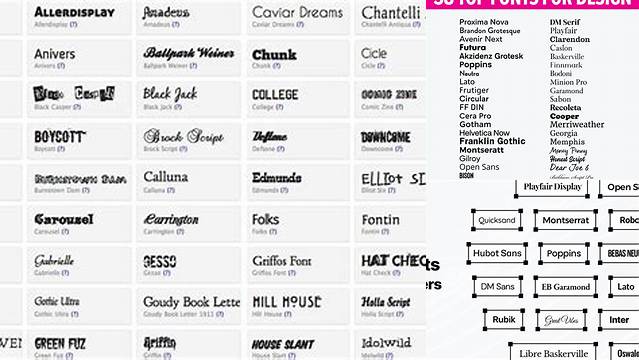
Top Website Fonts 2026: Best Typography Choices
Choosing the right fonts for your website is crucial for creating a visually appealing and user-friendly experience. Fonts play a significant role in conveying your brand's personality, improving readability, and ensuring your content resonates with your audience. As we look ahead to 2026, several font trends and classic favorites are expected to dominate web design. This article will delve into the most popular fonts you should consider for your website to stay ahead of the curve. From timeless classics to modern and innovative typefaces, we'll explore the fonts that will help you make a lasting impression online. So, letâs dive in and discover the fonts that will shape the future of web typography.
Why Font Choice Matters
Before we jump into the specific fonts that are expected to be popular in 2026, letâs discuss why font choice is so important. Fonts are more than just letters; they are visual elements that contribute significantly to your website's overall design and user experience. The right font can enhance readability, making it easier for visitors to engage with your content. A well-chosen font can also reflect your brand's identity and personality, helping you create a cohesive and memorable online presence. For example, a sleek, modern sans-serif font might be perfect for a tech company, while a classic serif font could be more appropriate for a traditional law firm.
Furthermore, font choice can significantly impact user engagement. If your website uses a font that is difficult to read or visually unappealing, visitors are likely to leave quickly. On the other hand, a clear, attractive font can encourage users to stay longer, explore more content, and ultimately convert into customers. Therefore, carefully selecting your fonts is an investment in your website's success. When choosing fonts, it's also essential to consider factors like font pairing, legibility across different devices, and the overall aesthetic you want to achieve. By paying attention to these details, you can create a website that not only looks great but also provides an optimal user experience. In the rapidly evolving landscape of web design, staying informed about font trends and best practices is crucial for maintaining a competitive edge. Letâs explore some of the top contenders for the most popular website fonts in 2026.
Expected Font Trends in 2026
As we move closer to 2026, several key font trends are emerging that are likely to shape the landscape of web design. These trends reflect a broader movement towards user-friendly, visually engaging, and brand-centric designs. Understanding these trends will help you make informed decisions about the fonts you choose for your website. One major trend is the continued popularity of sans-serif fonts. Known for their clean, modern lines, sans-serif fonts are highly legible on screens, making them an excellent choice for body text and headings alike. Fonts like Open Sans, Roboto, and Lato are expected to remain popular due to their versatility and readability. However, there's also a growing interest in more unique and stylized sans-serif options that can add personality to a website.
Another significant trend is the resurgence of serif fonts, but with a modern twist. Classic serif fonts like Times New Roman and Georgia are being reimagined with updated designs and improved legibility for digital platforms. These fonts bring a touch of elegance and sophistication to websites, making them a great choice for brands that want to convey a sense of tradition and authority. In addition to these established categories, we're also seeing the rise of variable fonts. Variable fonts offer incredible flexibility, allowing designers to adjust font weight, width, and other characteristics to create custom typography that perfectly matches their brand's identity. This trend towards personalization and customization is expected to gain even more momentum in the coming years. Moreover, the use of display fonts is becoming more prevalent. Display fonts are designed to be eye-catching and attention-grabbing, making them ideal for headings, banners, and other prominent elements on a website. Choosing a unique display font can help your website stand out and leave a lasting impression. As we explore specific font recommendations for 2026, keep these trends in mind to ensure your website typography is both stylish and effective.
Top Sans-Serif Fonts for 2026
Sans-serif fonts are celebrated for their clean lines and modern aesthetic, making them a staple in web design. Their excellent readability on screens ensures a smooth and engaging user experience. Here are some top sans-serif fonts expected to dominate websites in 2026:
1. Open Sans
Open Sans remains a favorite for its versatility and legibility. This font is incredibly adaptable, making it suitable for various industries and website types. Its neutral yet friendly appearance ensures it complements any design without overpowering it. The clean, open forms of Open Sans make it exceptionally readable in both body text and headings, contributing to a comfortable reading experience for your visitors. Its wide range of weights and styles allows for creative flexibility, making it easy to create visual hierarchy and emphasize key content. Open Sans is also optimized for web and mobile use, ensuring your text looks crisp and clear across all devices. Its widespread availability and compatibility make it a reliable choice for any project. Moreover, Open Sans supports a vast array of languages, making it an excellent option for multilingual websites. This global accessibility further enhances its appeal and usability. When you choose Open Sans, you're opting for a font that is not only visually pleasing but also highly functional and accessible, ensuring your message is conveyed effectively to a broad audience. Its enduring popularity is a testament to its timeless design and practical benefits.
2. Roboto
Roboto is a modern sans-serif font known for its dual nature â it has a mechanical skeleton with friendly and open curves. This combination makes it highly readable and aesthetically pleasing, suitable for a wide range of applications. Designed by Christian Robertson, Roboto was initially developed as the system font for Android and has since become a popular choice for websites and applications worldwide. Its geometric forms and clean lines provide a contemporary feel, while its subtle curves add a touch of warmth and personality. Roboto's versatility is one of its key strengths; it works equally well in headings and body text, making it a go-to font for designers seeking a consistent and cohesive typographic experience. The font family includes a variety of weights and styles, allowing for creative flexibility and the ability to create visual contrast within your design. Roboto is also optimized for screen readability, ensuring a clear and comfortable reading experience across different devices and screen sizes. Its widespread adoption across the web and mobile platforms has solidified its status as a reliable and accessible font choice. Furthermore, Roboto's open-source license means it is freely available for use in commercial and personal projects, making it an economically sound option for businesses and individuals alike. In summary, Roboto's blend of modern design, excellent readability, and versatility make it a top contender for website fonts in 2026.
3. Lato
Lato is a sans-serif typeface designed by Ĺukasz Dziedzic. It strikes a perfect balance between professionalism and approachability, making it an excellent choice for websites aiming to convey a sense of friendliness and authority. The semi-rounded details of Lato give it a warm and inviting appearance, while its strong structure ensures excellent readability in various contexts. One of Lato's defining characteristics is its clarity and legibility, even at smaller sizes. This makes it particularly well-suited for body text, where readability is paramount. However, its elegant design also makes it a great choice for headings and other prominent elements on a website. Lato's versatility is further enhanced by its extensive range of weights and styles, providing designers with ample opportunities to create visual hierarchy and emphasize key information. The font's clean, modern aesthetic aligns well with current web design trends, ensuring that your website looks up-to-date and professional. Additionally, Lato is optimized for screen display, guaranteeing a crisp and clear appearance across different devices and resolutions. Its open-source license allows for free use in both commercial and personal projects, making it a cost-effective option for designers and businesses. In conclusion, Latoâs blend of readability, versatility, and modern design makes it a highly recommended font for websites in 2026, promising a user-friendly and visually appealing experience.
Top Serif Fonts for 2026
Serif fonts, with their distinctive strokes and classic appeal, bring a touch of elegance and tradition to web design. While they might have been considered less screen-friendly in the past, modern iterations and optimization techniques have made them a stylish and readable choice for websites. Here are some top serif fonts to consider for 2026:
1. Playfair Display
Playfair Display is a transitional serif typeface designed by Claus Eggers Sørensen. It is characterized by its high contrast and delicate serifs, giving it a sophisticated and elegant appearance. Playfair Display is particularly well-suited for headings and titles, where its refined letterforms can make a strong visual impact. While it may not be the best choice for extensive body text due to its intricate details, it excels in creating a sense of luxury and sophistication. The font's design is inspired by the late 18th-century designs of John Baskerville and William Martin, reflecting a classic and timeless aesthetic. Playfair Display's versatility is evident in its ability to complement a wide range of design styles, from traditional to modern. It pairs beautifully with sans-serif fonts for body text, creating a balanced and harmonious typographic palette. The font's distinctive appearance can help your website stand out, conveying a sense of quality and attention to detail. Playfair Display's availability as a free web font makes it an accessible option for designers and website owners looking to add a touch of elegance to their projects. Its elegant and refined design ensures your website conveys sophistication and style. In summary, Playfair Display is an excellent choice for headings and titles, offering a touch of classic elegance that enhances the overall aesthetic of your website.
Choosing the right fonts is essential for creating a website that not only looks great but also provides an excellent user experience. As we look ahead to 2026, the fonts discussed in this article â Open Sans, Roboto, Lato, Playfair Display, Merriweather, EB Garamond, Montserrat, Raleway, and Oswald â are all strong contenders for popularity. Whether you're aiming for a modern, classic, or unique aesthetic, there's a font on this list that can help you achieve your goals. Remember to consider font pairing, readability, and your brand's personality when making your selections. By staying informed about font trends and best practices, you can ensure your website's typography is both stylish and effective, helping you make a lasting impression on your audience. The key is to strike a balance between visual appeal and functionality, ensuring that your fonts not only look good but also enhance the overall user experience. So, go ahead and experiment with these fonts to discover the perfect typographic palette for your website, setting the stage for success in 2026 and beyond. Always test your font choices across different devices and browsers to ensure consistency and readability. Happy designing, folks!